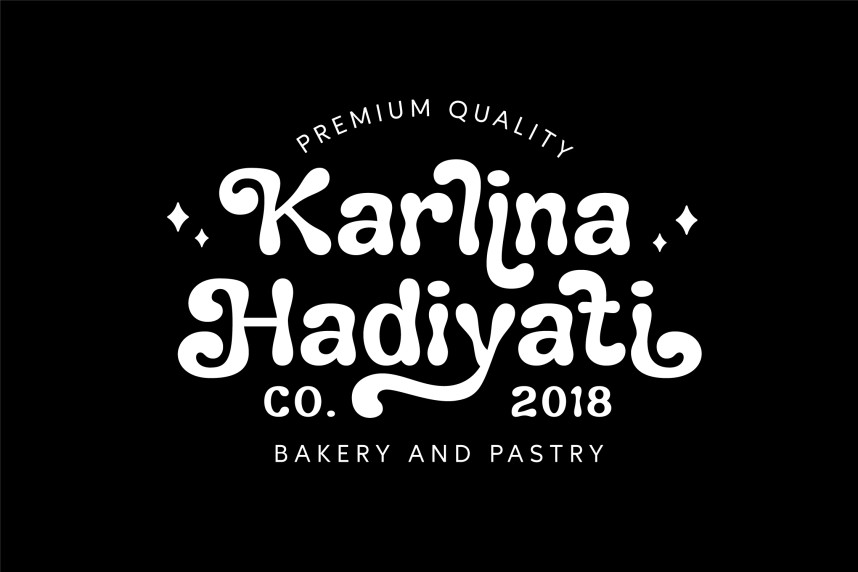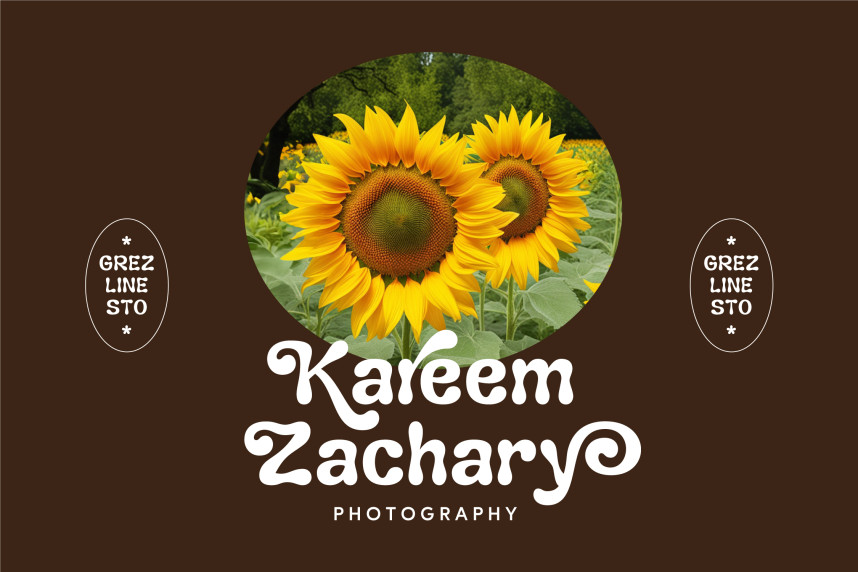
Thomas Reginald Font is a versatile bold font created by Grezline Studio with unique letterform. This font will bring you back to retro feel. Thomas Reginald font is perfect for a design that requires a playful accent. It is suitable for book covers, posters, packaging, merchandise, logotype, and much more.